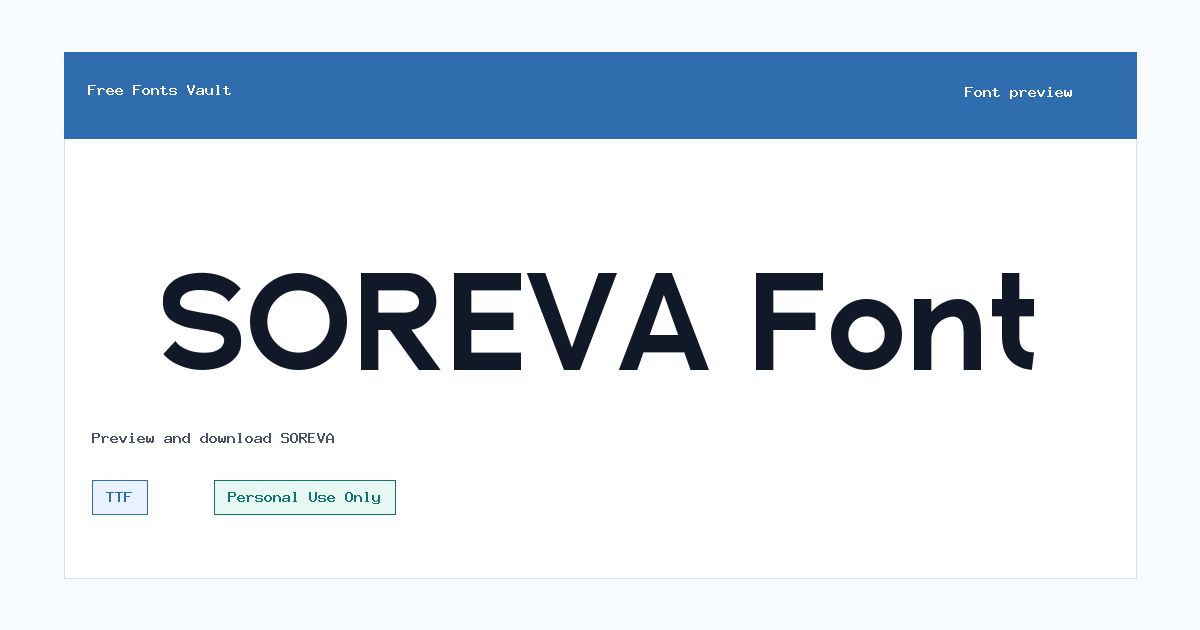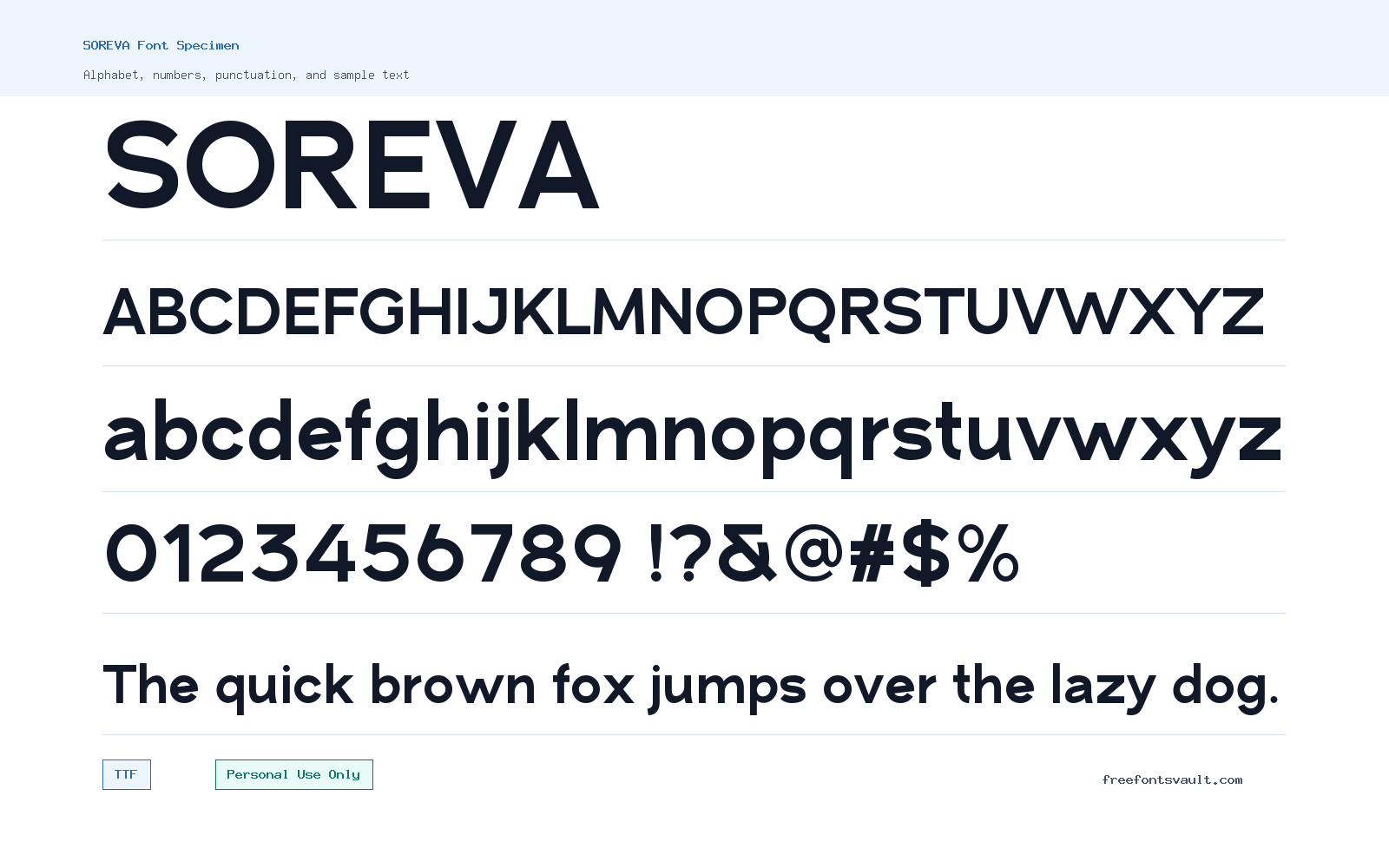
SOREVA
- Designer Maikohatta
SOREVA is a clean sans serif font with a simple regular style, made for visitors who want a straightforward typeface to test in previews, personal designs, and short display text.
About SOREVA Font
SOREVA works best when you need a plain, modern-looking sans serif without decorative extras. Its regular weight gives it a balanced appearance for headings, labels, simple graphics, and short blocks of text. Because only a regular style is listed, it is better suited to clean layouts than to projects that need a full typographic system with bold, italic, or multiple weights.
- Regular-weight sans serif style for clean personal design work
- Simple structure that can work for titles, labels, and short text
- Personal posters, quote graphics, and social media mockups
- Clean headings, labels, and simple preview-based design tests
- Pairing experiments with serif fonts or heavier sans serif typefaces
Who designed SOREVA?
The designer name listed for SOREVA is Maikohatta.
What kinds of projects suit SOREVA?
SOREVA is best for personal projects that need a clean sans serif look, such as simple headings, posters, labels, quote images, and layout tests.
Does SOREVA include bold or italic styles?
Only a regular normal-weight style is listed, so plan your design as a single-style font unless you confirm additional styles from another source.